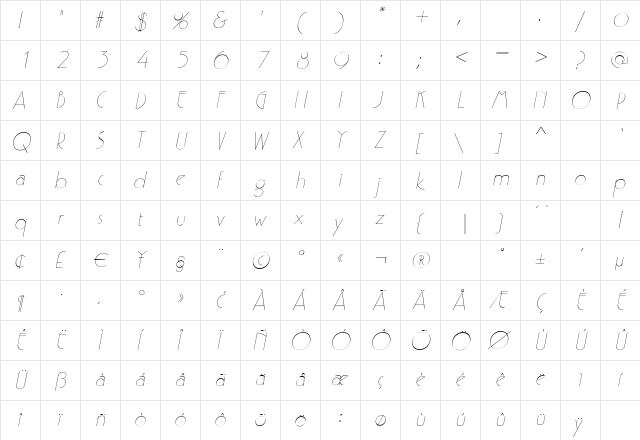
P700-Deco Italic
Design Context for P700-Deco Typeface
P700-Deco is a composed and adaptable typeface that performs quietly and consistently across a wide range of design contexts. The dynamic lean of this cut emphasises speed and emphasis in any layout.
Pro Tip: Try P700-Deco for annotation and caption copy alongside an upright companion — the contrast in angle creates a dynamic but ordered typographic system.